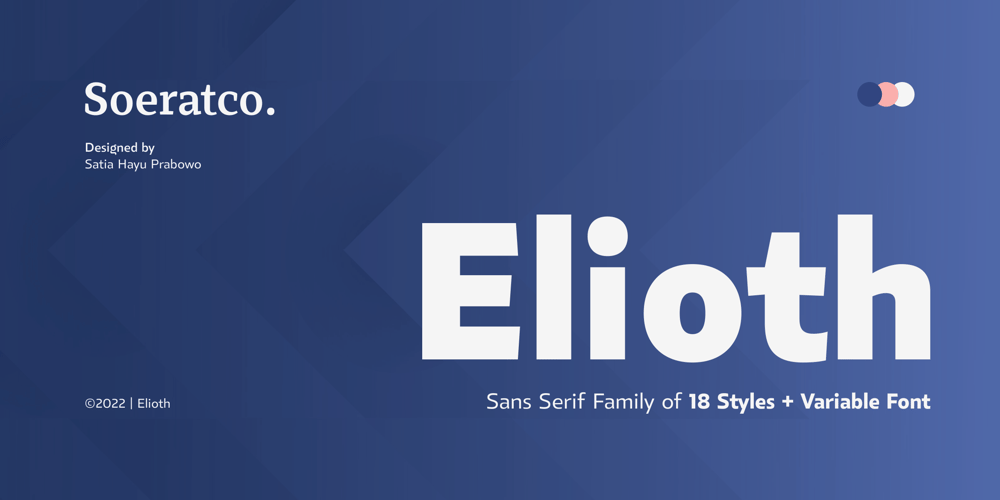
Elioth Font Family was designed by Satia Hayu Prabowo and published by Soerat Company. Elioth contains 20 styles and family package options. Elioth is a humanist font with angled terminals as a identity of this product. Comes with a modern look, this font suitable for display and body text. Elioth is perfect for advertising, packaging, logo, editorial and publishing, branding and other creative industries.This family of 9 weights from Thin to Heavy along with italics contain several OpenType features: Stylistic Alternates and Figures Variation (circled number, fraction, tabular lining, numerator, denominator). With over 752 glyphs per style, Elioth supports around 150+ languages in Latin and Cyrillic script.Family overview: 9 weights (from Thin to Heavy) + italics Extended Latin Cyrillic 752 glyphs Variable Font 150+ languages OpenType Features: Localized Forms Subscript and scientific inferiors Superscript (Superiors) Numerators and Denominators Fractions Lining Figures Tabular Figures Oldstyle Figures Circled Number Case-Sensitive Forms Standard and Discretionary Ligatures Stylistic Alternates